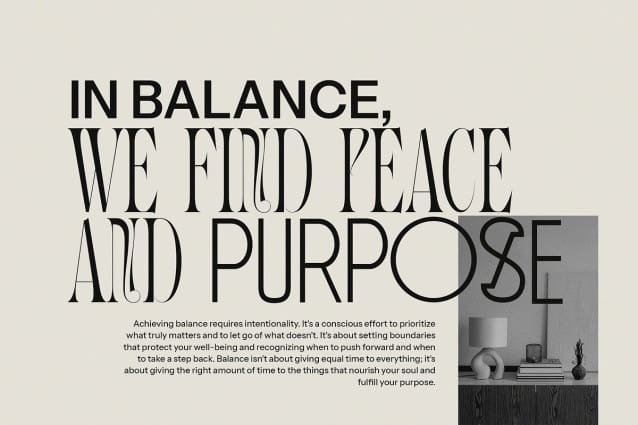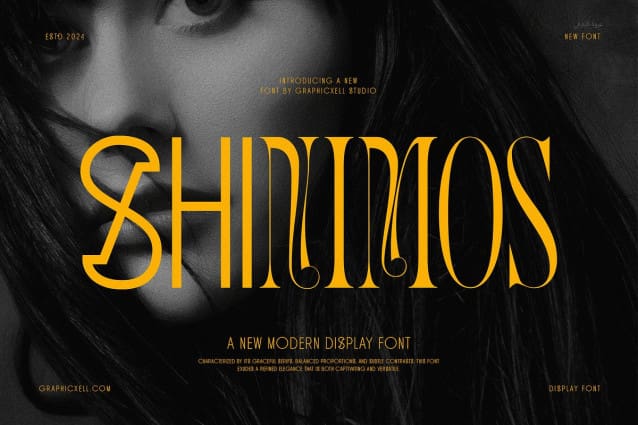
Shinimos Unique Font Duo
Shinimos Unique Font Duo is a stunning and distinctive font that effortlessly blends elegance with modernity, making it a perfect choice for branding and logo designs. This font features a sophisticated serif style that adds a touch of class to any project, whether it’s a logo, wedding invitation, or social media post. Its versatility is showcased in its ability to enhance various design needs, including advertisements, product packaging, labels, photography, watermarks, invitations, stationery, and more.
What sets Shimons Unique Duo Font apart is its exceptional readability, ensuring that your message is conveyed with clarity and style. Whether you’re creating a brand identity or designing a product label, this font’s high level of readability ensures that your audience can easily engage with your content. Shimons Unique Duo Font is a versatile and reliable choice for designers seeking a font that combines elegance, modernity, and readability. With its timeless appeal and versatility, this font is sure to elevate your designs and leave a lasting impression.